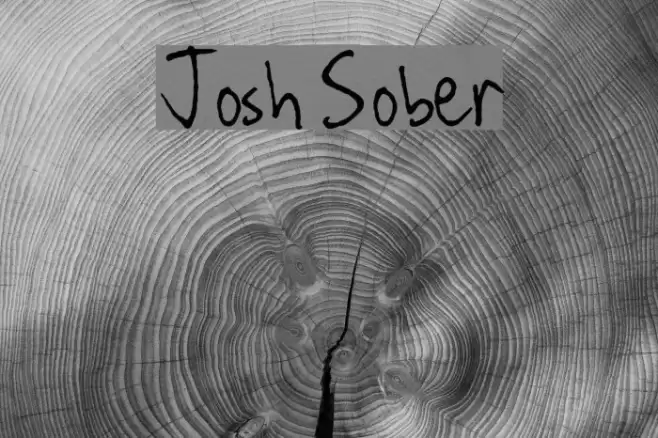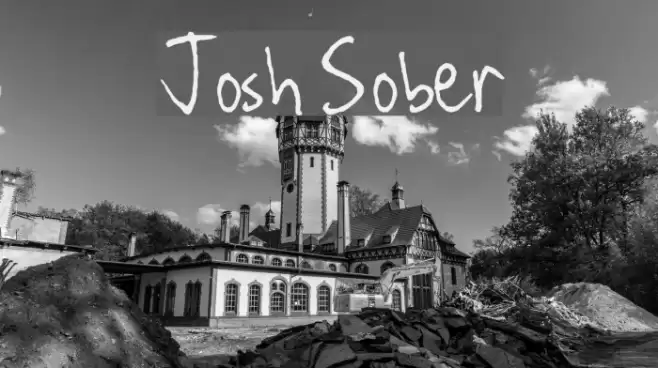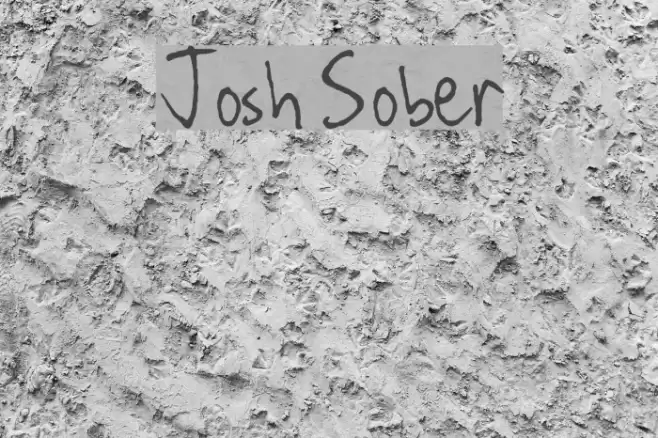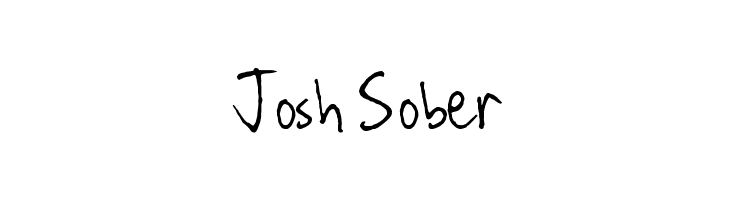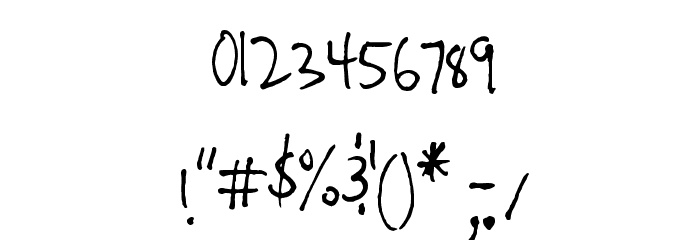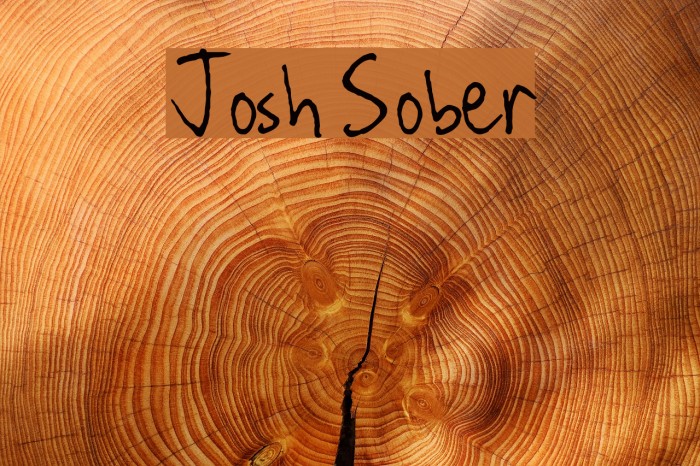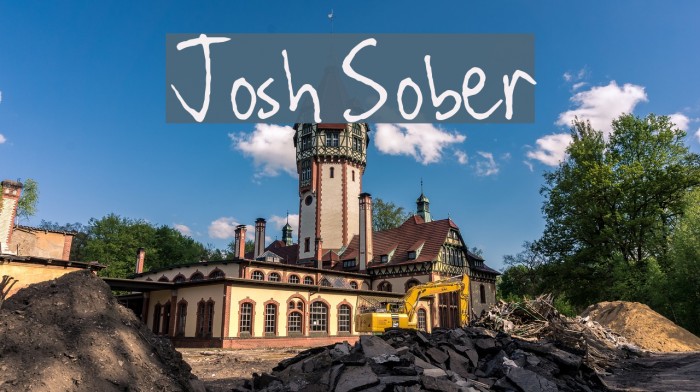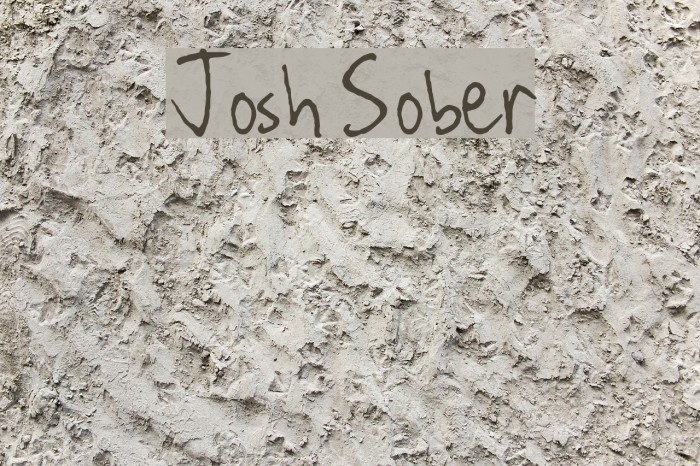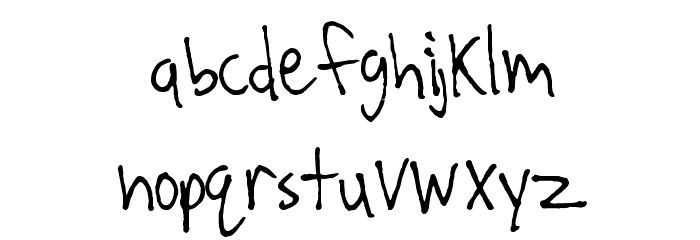
Josh Sober Font
Josh Sober Description
This font exudes a casual, handwritten style, characterized by its irregular strokes and playful appearance. Each letter has a unique, slightly uneven form, giving it a personal and informal touch. The uppercase letters are bold and prominent, while the lowercase letters maintain a consistent flow, enhancing readability. Numbers and special characters follow the same whimsical style, making them stand out. The overall impression is one of creativity and spontaneity, ideal for projects that require a personal or artistic flair.
A casual, handwritten font with playful, irregular strokes from Uncategorized fonts.
- Proposed Projects: Ideal for greeting cards, personal blogs, creative posters, and informal invitations.
- Overall Style: Casual, Artistic
- Use Case: Headlines, Informal text, Creative projects